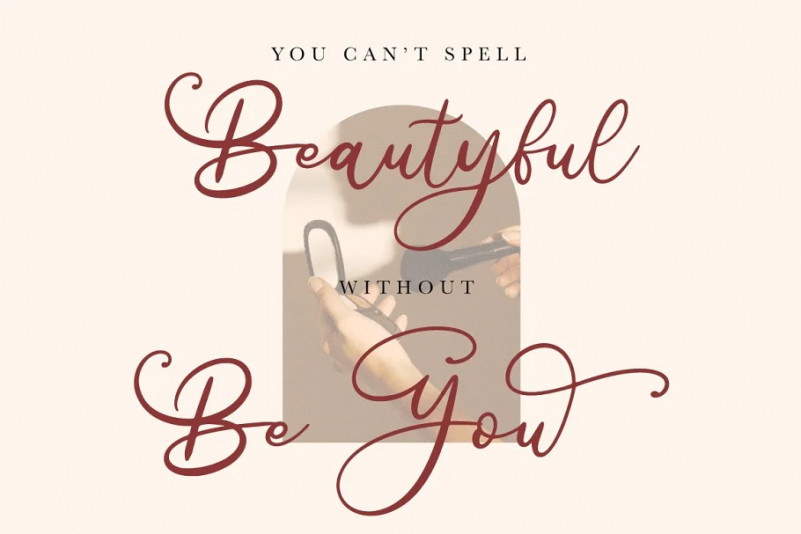
Alista Delita Font
Alista Delita Script Font is a unique and eye-catching script font. No matter the topic, this font will be an incredibly asset to your fonts’ library, as it has the potential to elevate any creation.